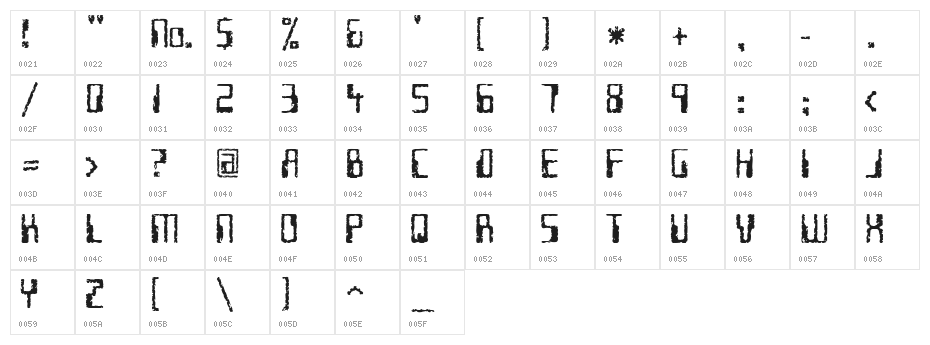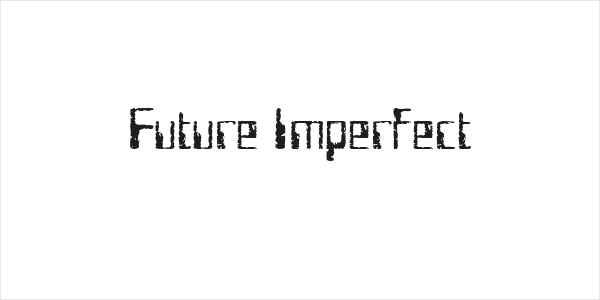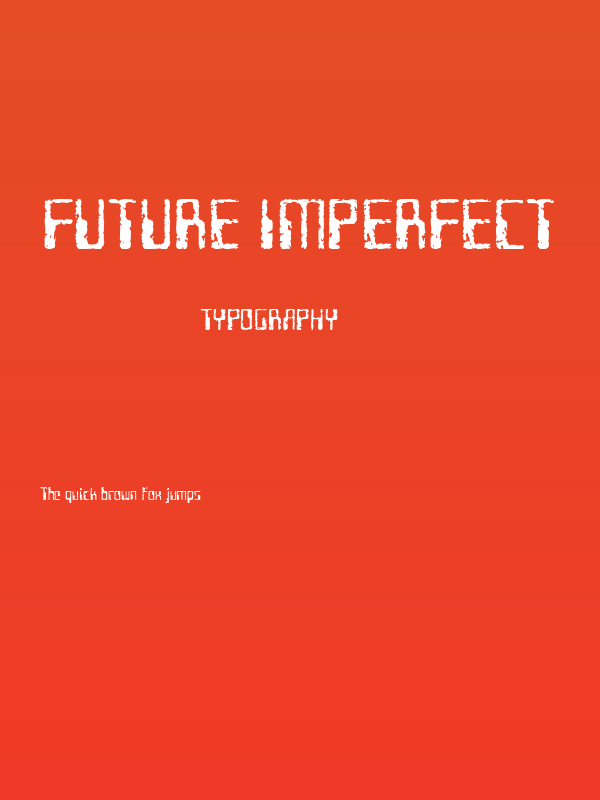
Future Imperfect Font
Future Imperfect Description
This font features a distressed and eroded appearance, giving it a rugged and weathered look. The characters are bold and have a rough texture, resembling worn-out surfaces or decayed materials. The uppercase and lowercase letters maintain a consistent style, with jagged edges and irregular shapes that add to the font's unique character. Numbers and special characters follow the same design, ensuring a cohesive visual theme. The overall effect is striking and eye-catching, making it suitable for projects that require a gritty or industrial aesthetic.
| Proposed Projects | Ideal for posters, album covers, video game graphics, or any project needing a gritty, industrial look. |